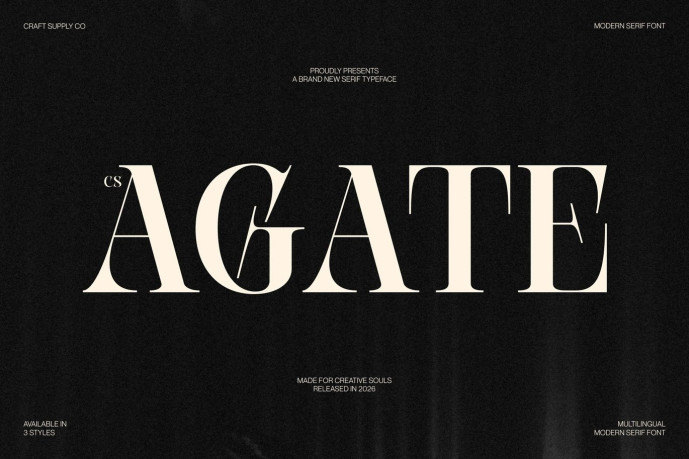
Agate – Modern Serif Font
Designer: Craft Supply Co.
CS Agate – Modern Serif Font: Where Sharp Elegance Meets Contemporary Luxury Sharp Angles with Elegant Contrast This is a modern serif font that combines sharp angles, sleek stroke contrasts, and elongated serifs to create a sophisticated and contemporary visual identity. Its refined construction balances precision with elegance, resulting in letterforms that feel graceful, confident, and effortlessly stylish. Every character is designed to convey professionalism while maintaining a distinctive luxury appeal.
Contemporary Design with Timeless Character This font offers a modern interpretation of classic serif typography. The contrast between delicate strokes and bold structural elements creates depth and refinement, allowing the font to stand out in premium visual compositions. Its timeless aesthetic makes it equally suited for editorial design and upscale branding.
Elegant Presence with Professional Appeal Its communicates sophistication through every letterform, making it ideal for projects that require a polished and distinguished appearance. Its elongated serifs and balanced geometry create an impression of exclusivity, while its clean structure ensures excellent readability and visual harmony across both print and digital applications.
Perfect for Luxury and Editorial Design Perfect for luxury brand identities, fashion and beauty branding, magazine layouts, editorial headlines, premium packaging, hotel and hospitality branding, invitations, product labels, logos, and other high-end design projects. Its elegant serif forms make it ideal for typography that seeks to communicate prestige, refinement, and timeless sophistication.